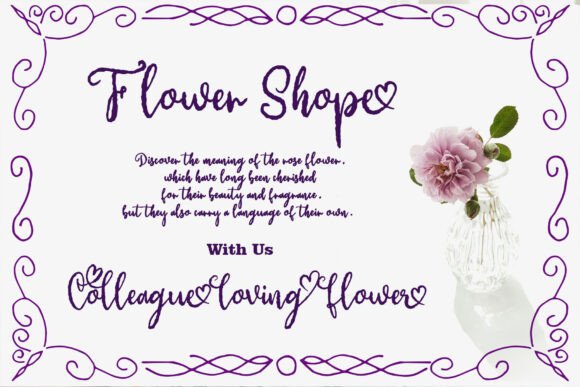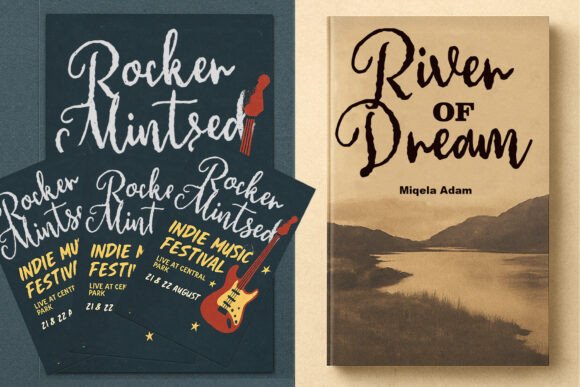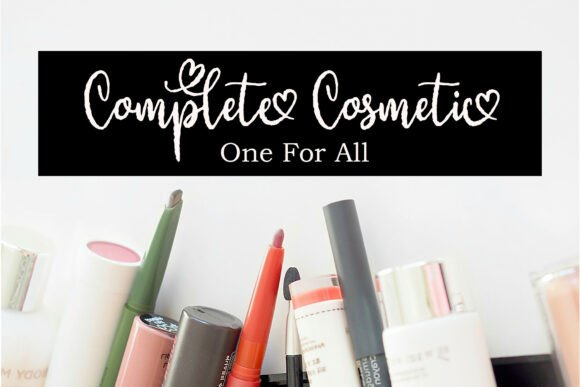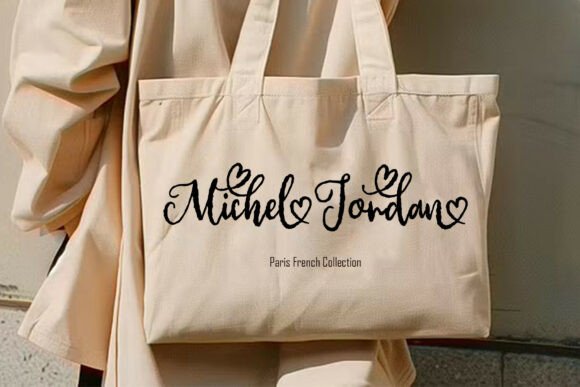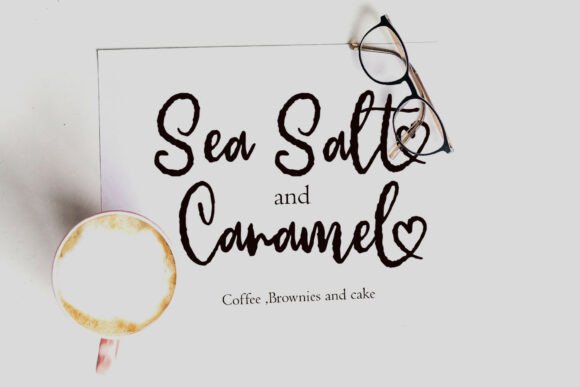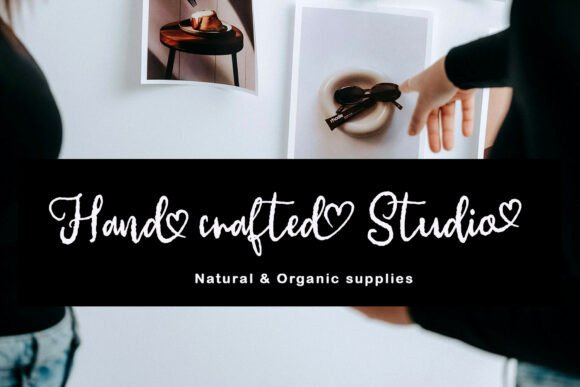
Introduction to Refagan Font
Refagan is a modern brush script font that exudes authenticity and hand-crafted charm.
Designed to capture the natural flow of hand lettering, this font combines bold strokes with smooth curves, making it perfect for creative projects that need a personal touch Whether youโre aiming for a natural, artistic look or a bold, expressive statement, this font adds a unique, handcrafted feel to your design.
Key Features of Refagan Font
Why Choose Refagan Font?
Refagan Font offers exceptional quality and versatility, making it a valuable addition to your design toolkit. Whether you’re creating for personal projects or commercial use, Refagan Font delivers professional results.